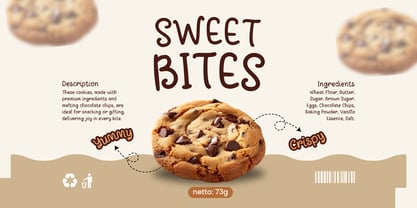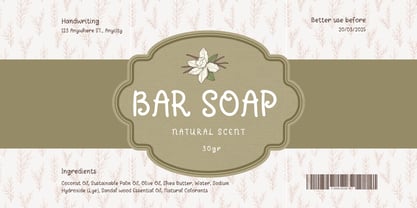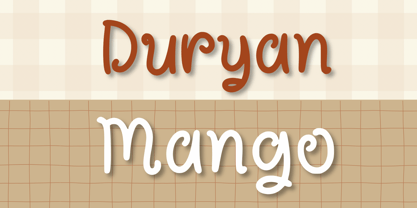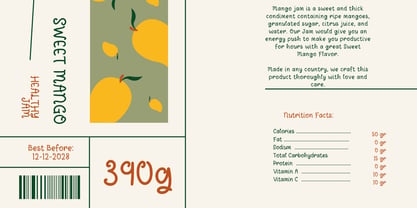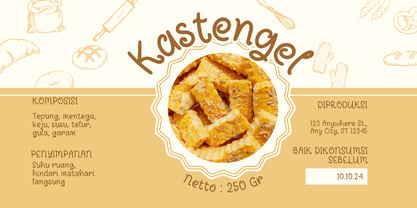
Duryan Mango
by Aisyah
The Duryan Mango Font Family was designed by Nur Aiysah Amalia and published by Aisyah. Duryan Mango contains 1 styles. More about this family
Indulge in the sweet, fluid charm of the Duryan Mango font, a delightful script that feels as smooth and satisfying as its namesake.
This friendly DuryanMango typeface features bouncy characters and rounded terminals, making it an ideal choice for cafe menus, bakery branding, and cozy lifestyle blogs. When you use the Duryan Mango font, you inject a sense of warmth and approachability into your text that invites the reader in. This Duryan Mango typeface works beautifully for product labels and “Thank You” cards, especially when paired with warm, sun-kissed colors and soft checkered patterns. Its natural flow and playful rhythm ensure that your designs feel personal and artisanal, making it a perfect match for any brand that values a “home-grown” and sweet personality.
Ideal for embellishing design projects, highlighting crucial elements in recipes, or adding an attractive flair to product packaging.
This font transforms your text into a visually arresting design element that engages viewers, while maintaining readability and clarity. Unleash your creativity with Duryan Mango Font, the typographical solution that can transform the ordinary to extraordinary!